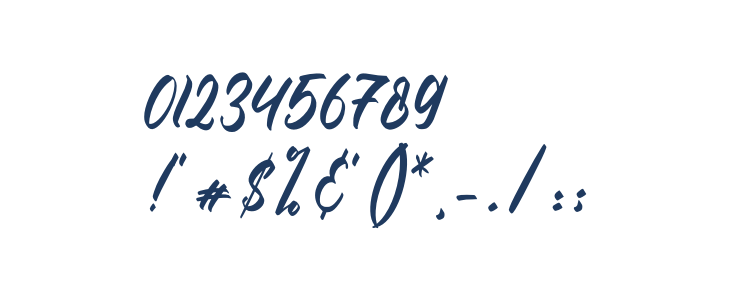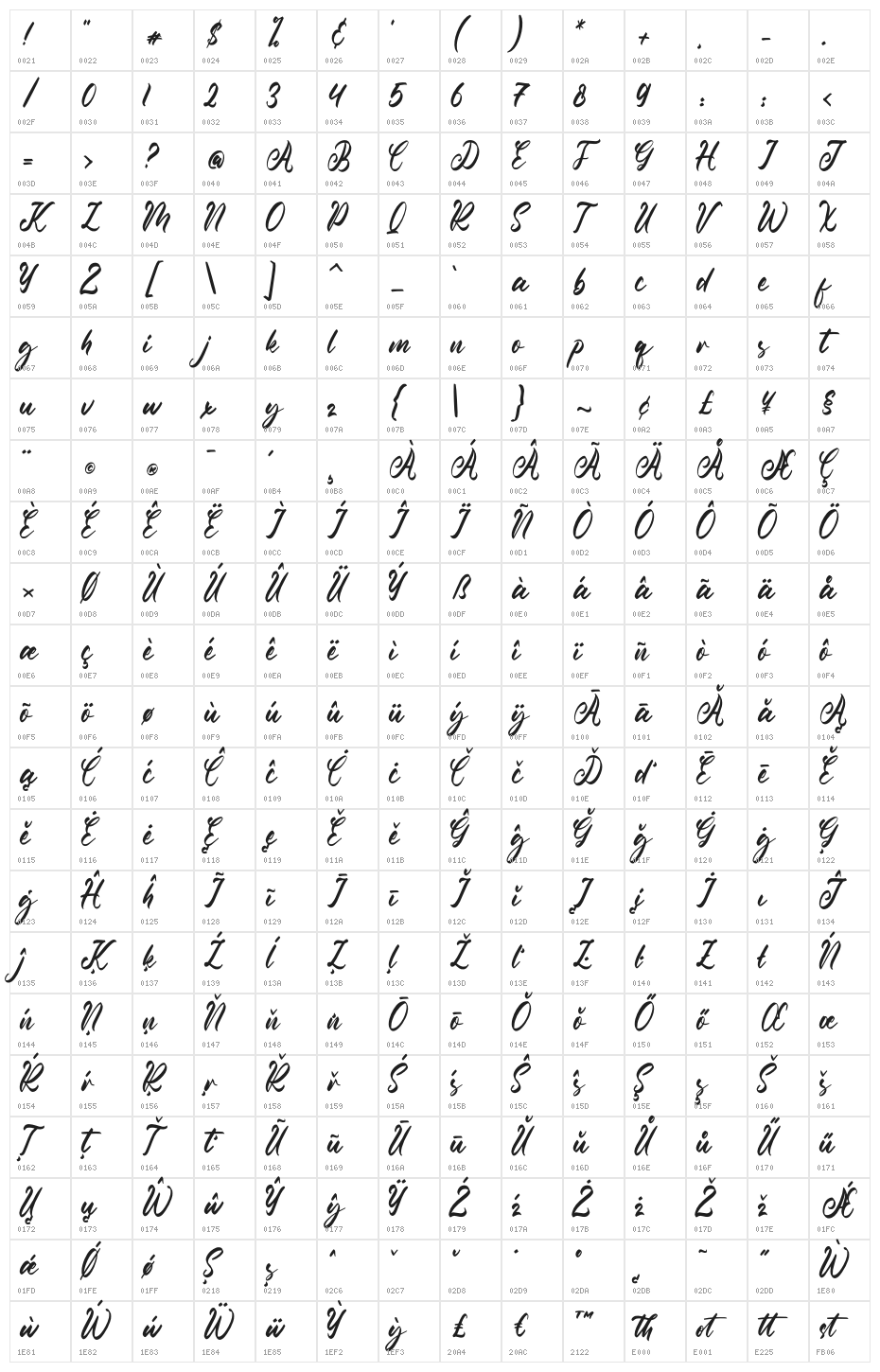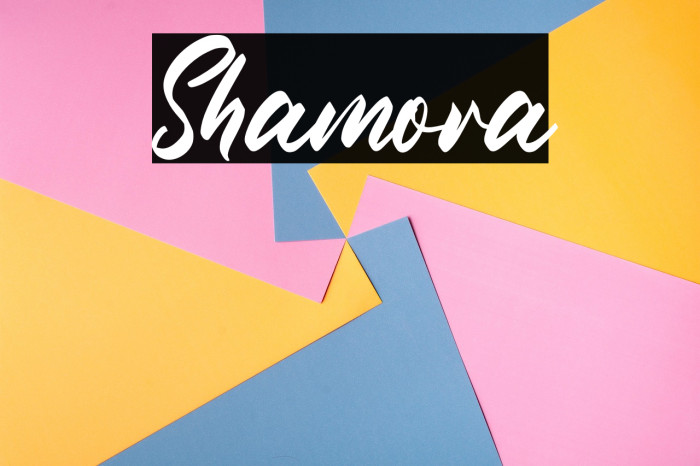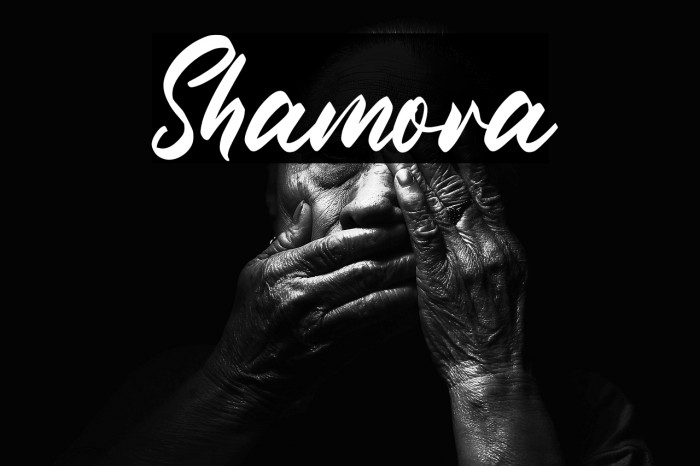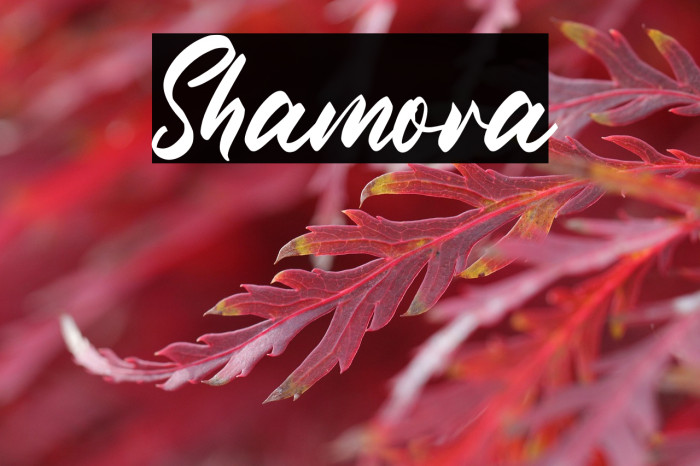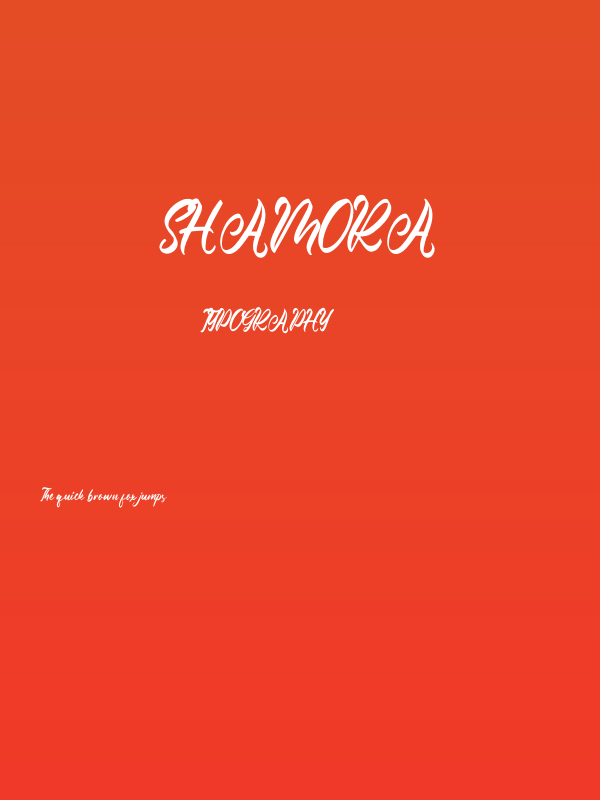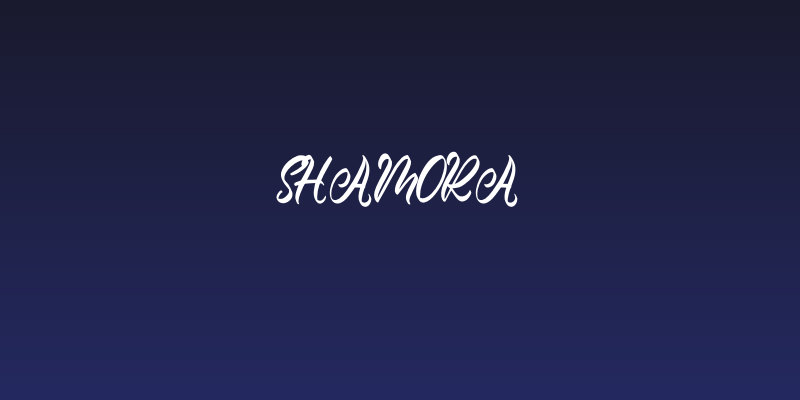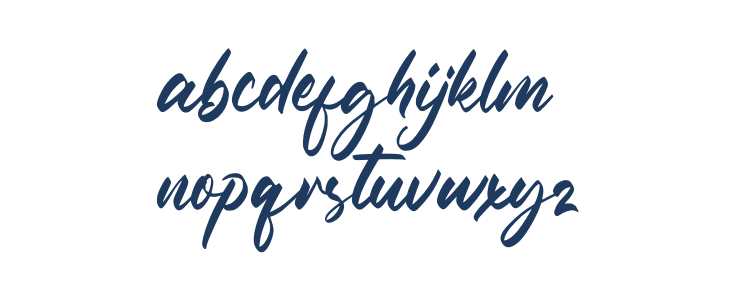
Shamora Font
Shamora Description
This font features a bold and expressive script style, characterized by its flowing, cursive letterforms. The strokes are thick and dynamic, creating a sense of movement and elegance. The uppercase letters are particularly ornate, with sweeping curves and loops that add a decorative flair. The lowercase letters maintain a consistent style, with smooth connections between characters, enhancing the script's fluidity. The numerals are equally bold, matching the overall aesthetic of the alphabet. Special characters are included, maintaining the same expressive style, making this font versatile for various creative applications.
| Use Case | Logos, Headlines, Invitations |
| Proposed Projects | Ideal for wedding invitations, branding projects, logo design, and decorative headings. |